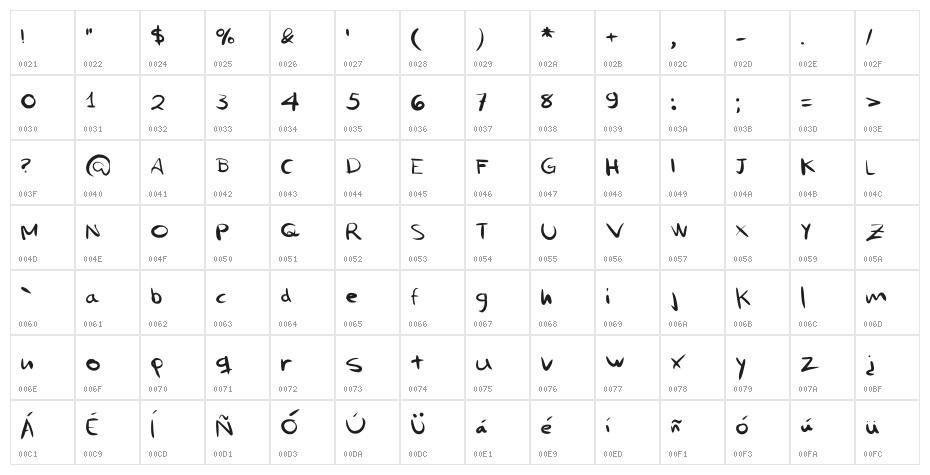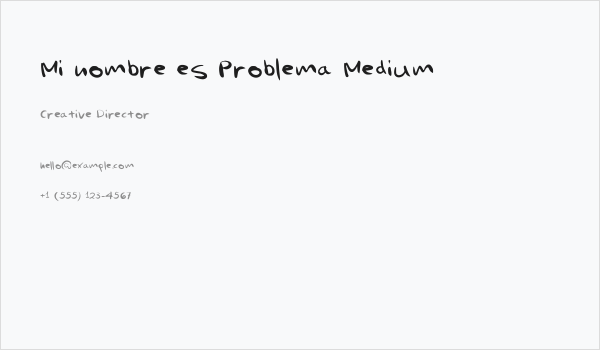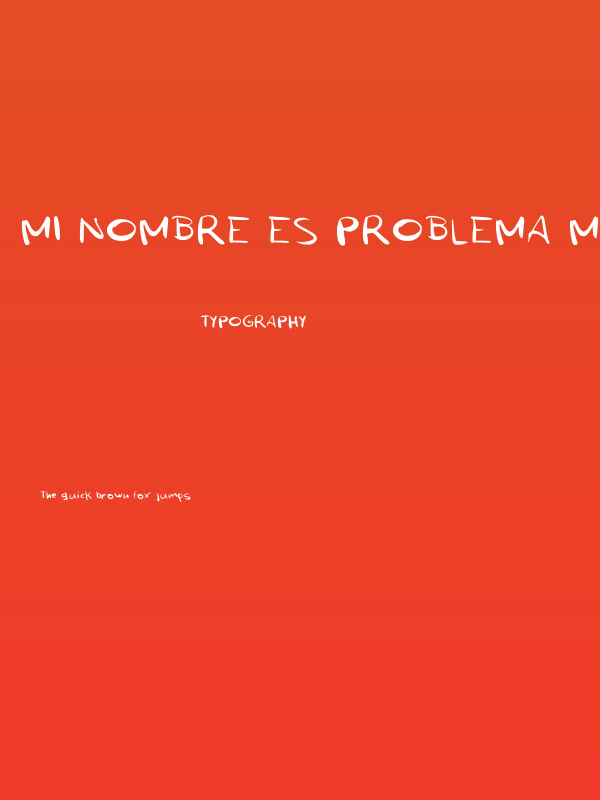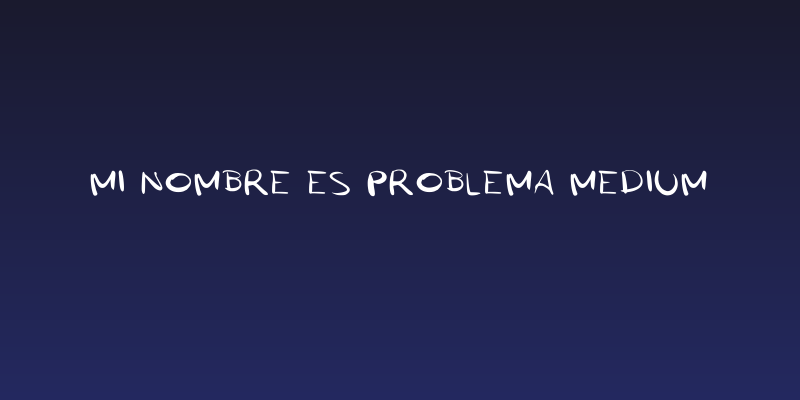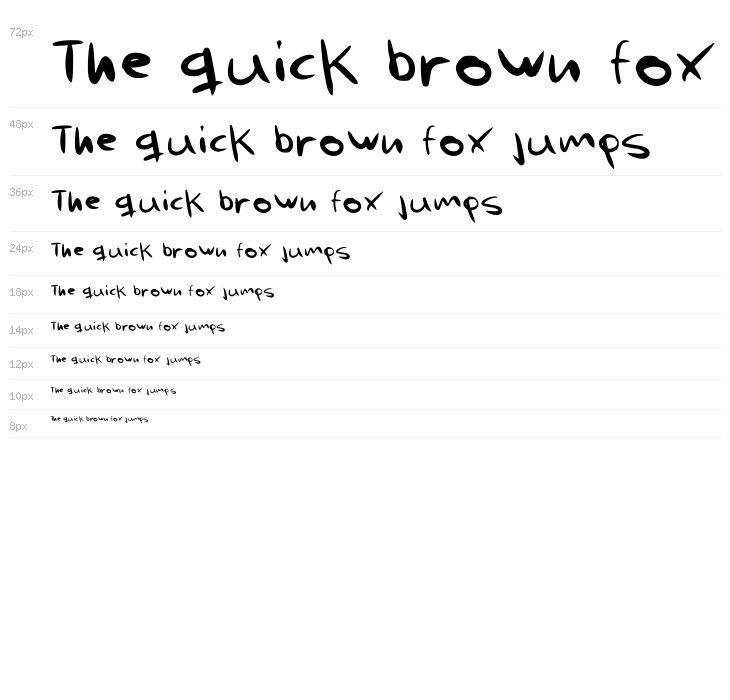
Mi nombre es Problema Medium Font
Mi nombre es Problema Medium Description
This font features a playful and energetic handwritten style, characterized by its irregular strokes and dynamic flow. The letters have a casual, informal appearance, with varying stroke widths that add a sense of movement and personality. The uppercase and lowercase letters maintain a consistent style, with rounded edges and a slightly slanted orientation. The numerals and special characters complement the alphabet with similar whimsical traits, making the font suitable for creative and expressive designs. Its unique charm and lively character make it stand out in any project.
| Proposed Projects | Ideal for greeting cards, children's books, playful branding, and creative posters. |